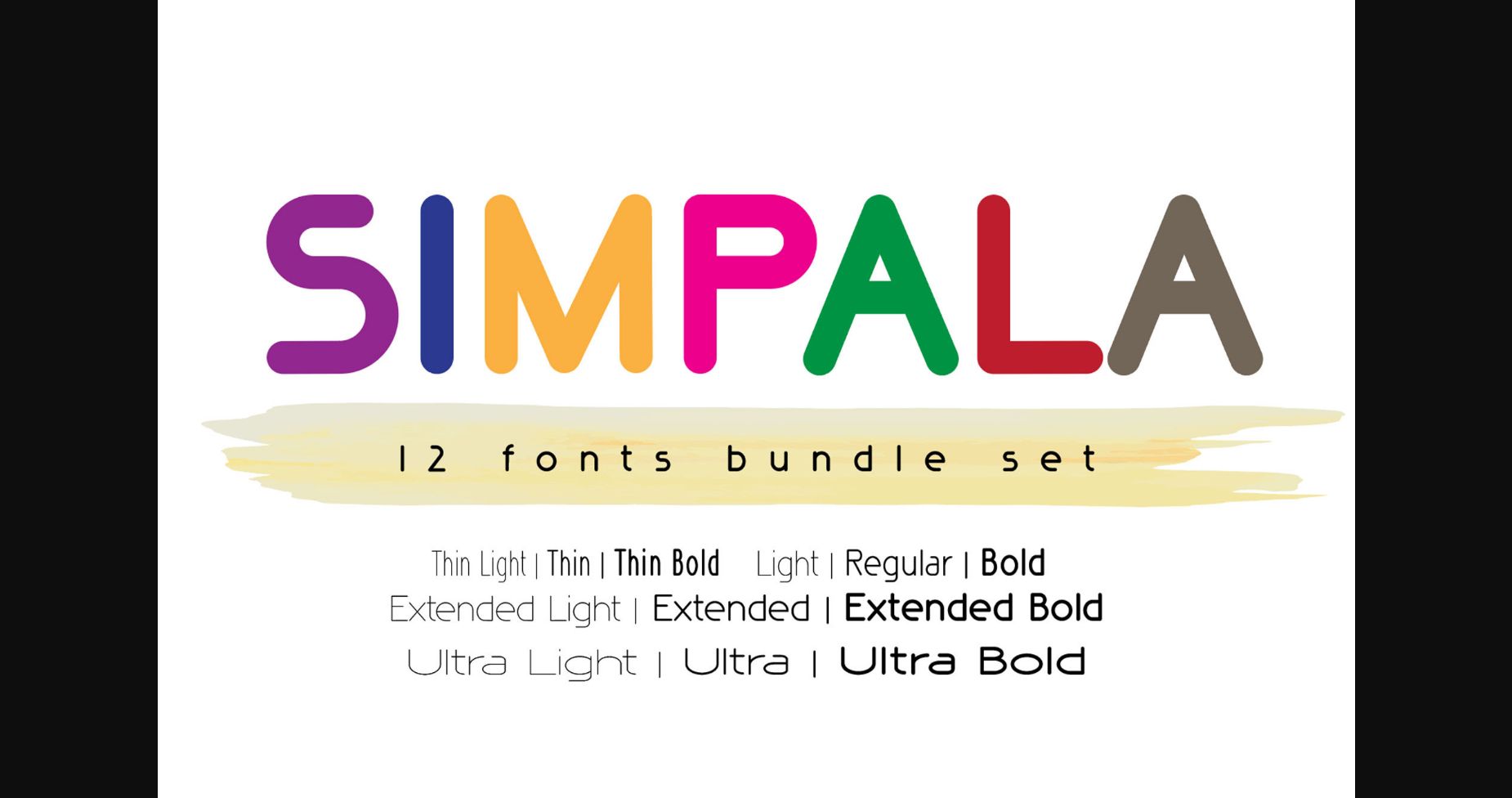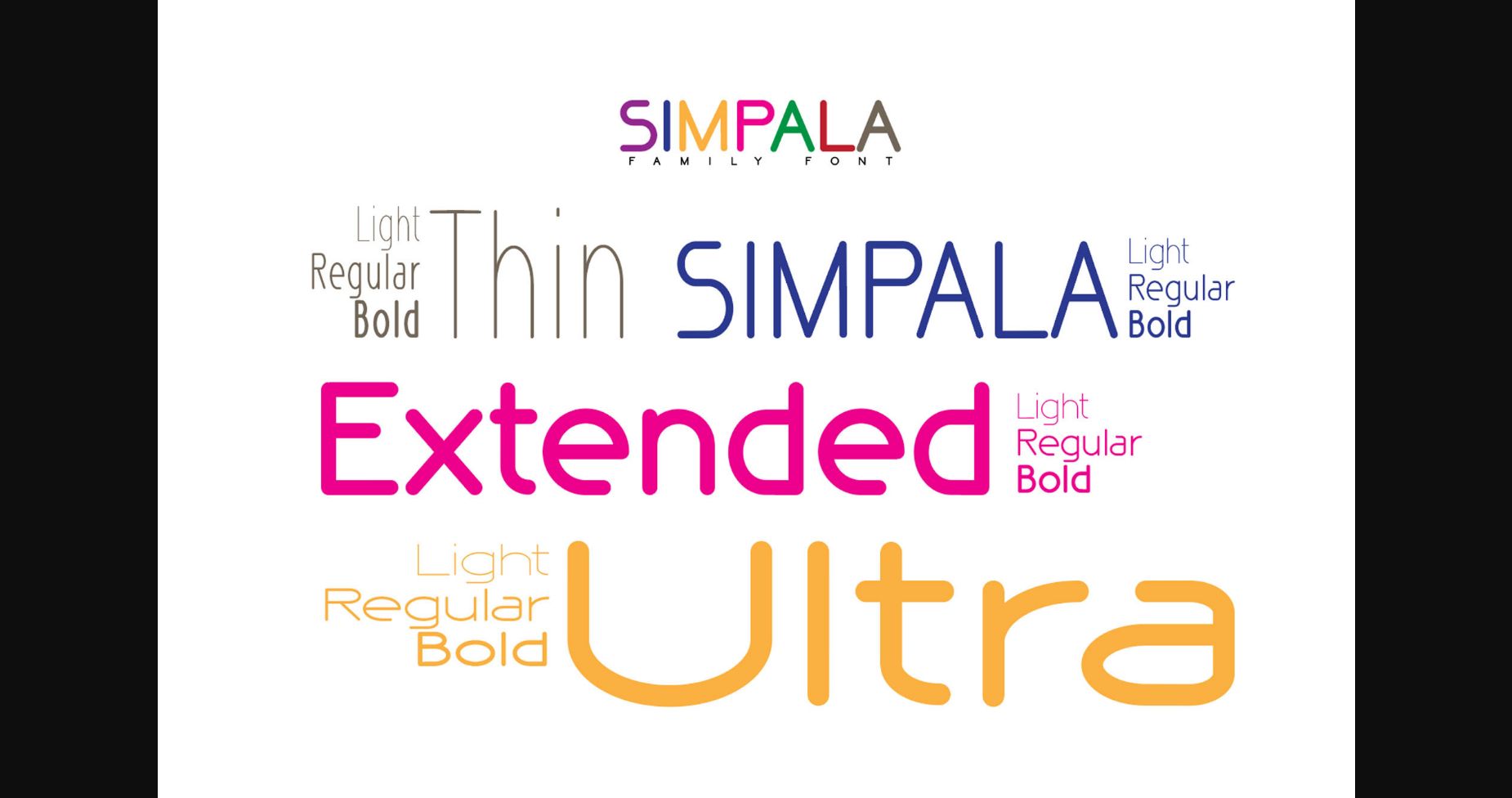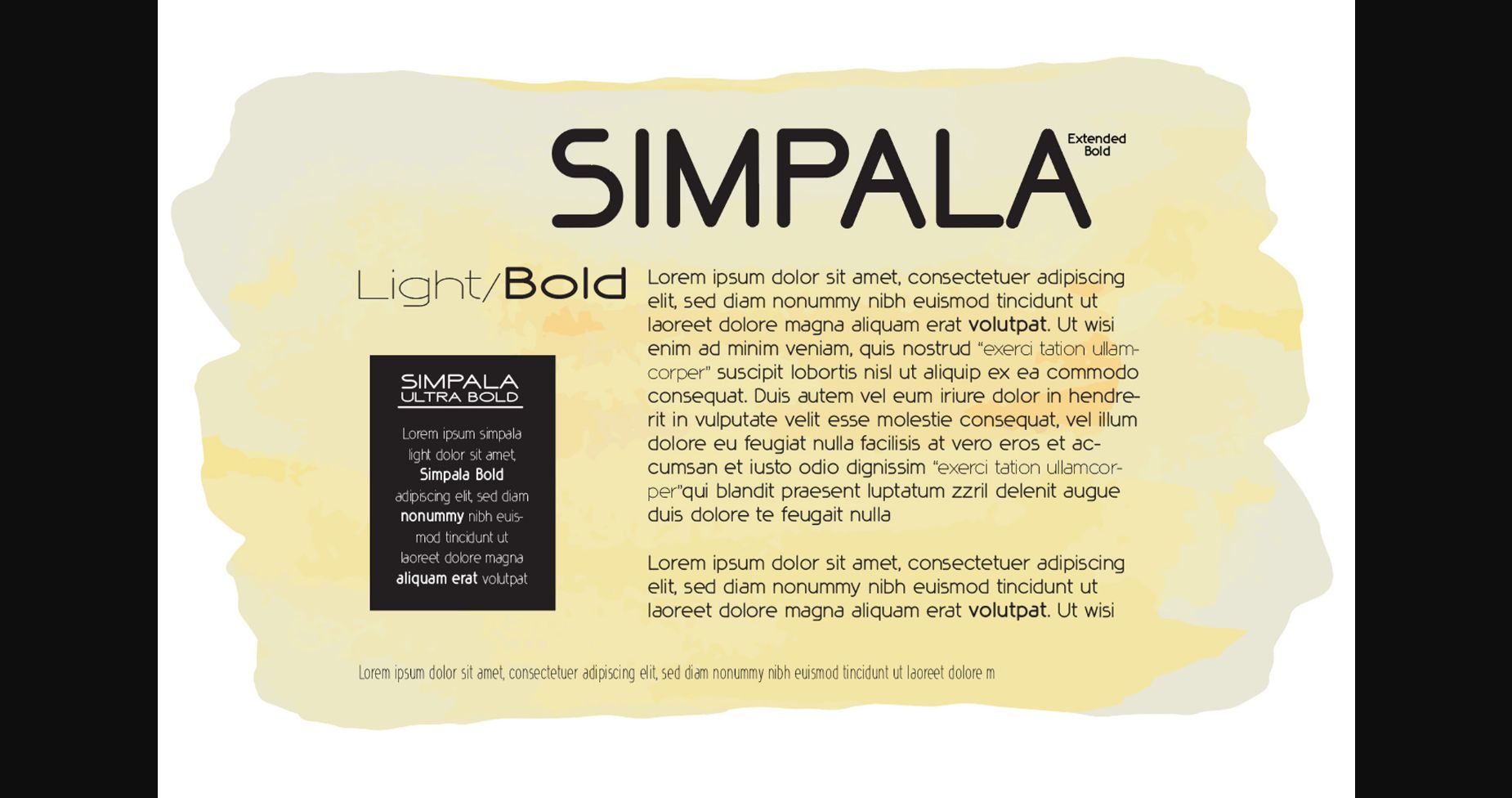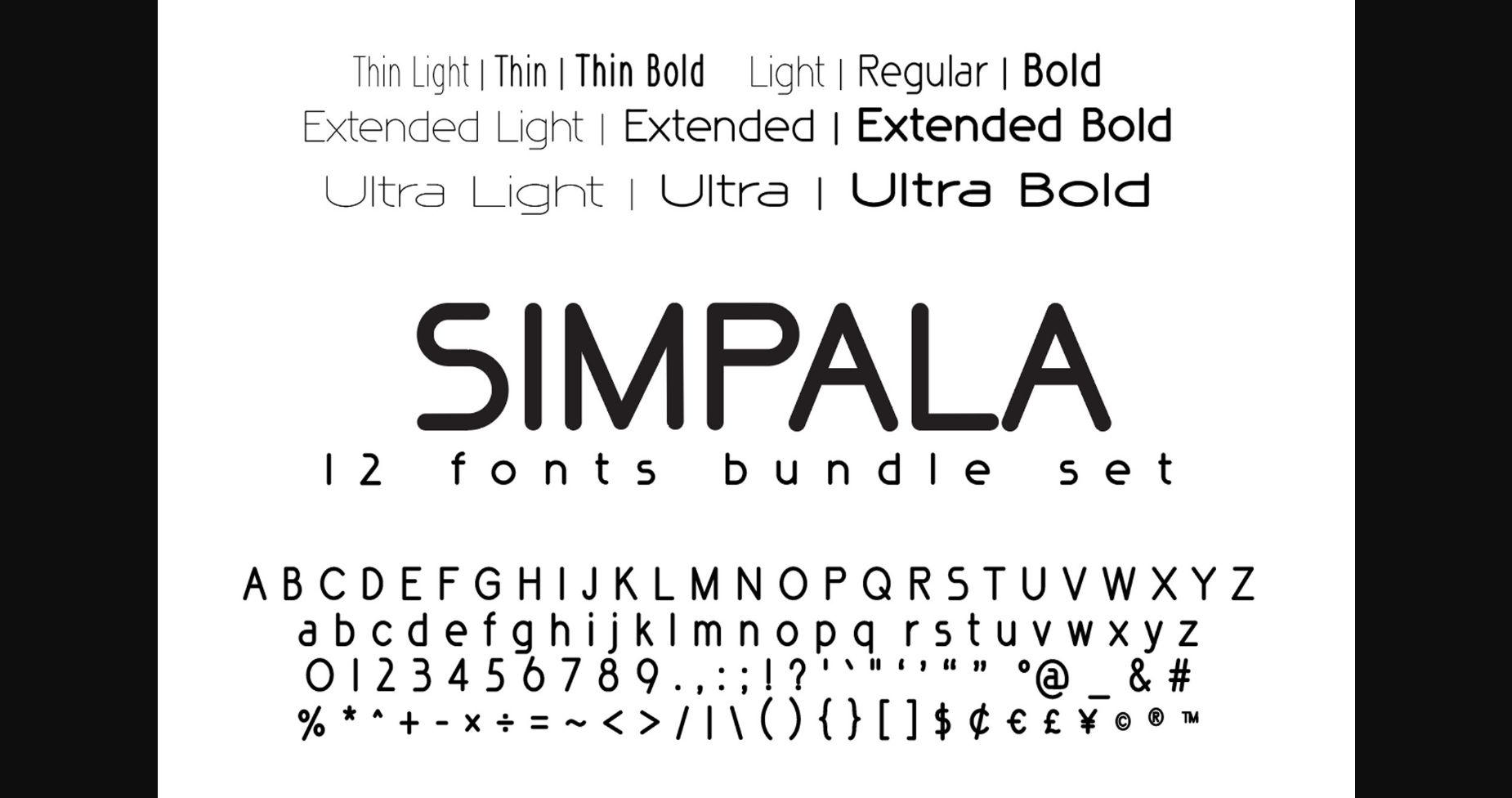
Simpala is a minimal and neat sans serif font. It can easily be matched to an incredibly large set of projects, so add it to your creative ideas and notice how it makes them stand out!